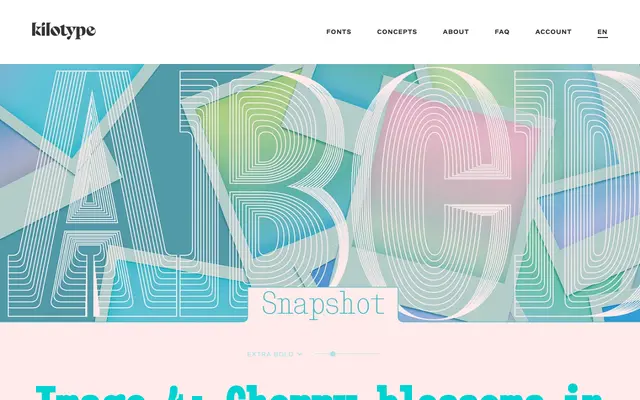
Snapshot
Kilotype · Selma Losch · 2022
Snapshot specimen from Kilotype
A uniwidth slab serif by Selma Losch that deliberately subverts uniform spacing by letting individual letters vary dramatically in width while keeping all weights metrically identical.
Released in 2022 as part of Kilotype's Concept Fonts series, Snapshot draws on 19th-century display slab tradition while introducing a distinctive quirk: narrow M and W sit alongside wide i and r, creating word shapes that read almost monospaced without the mechanical regularity that implies. Because all ten weights share the same character widths, swapping weights triggers no text reflow, opening up animation and layout tricks unavailable in conventional weight-variable families. Selma Losch frames this as letters working cooperatively rather than uniformly, producing visual tension that holds the eye without collapsing into chaos.
Snapshot is explicitly described in the lineage of 19th-century slab serif display types, with prominent serifs used to grab attention, placing it firmly in the slab category with a display orientation.